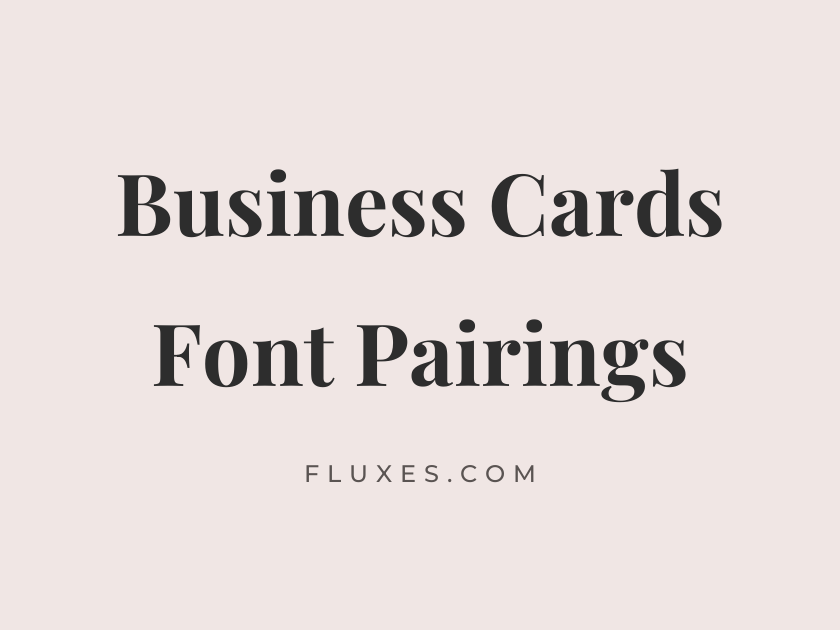
34 Best Font Pairings for Business Cards
Business cards compress an entire brand impression into a few square inches, which means every letterform has to earn its place. The right pairing signals professionalism, personality, and legibility at a glance, whether that card is being read across a table or photographed for a contact list. These combinations are all built from fonts available free on Google Fonts, chosen for genuine typographic compatibility rather than just visual novelty.
Playfair Display + Open Sans
The high-contrast strokes of Playfair Display give a card instant polish, while Open Sans’s plain, even strokes keep the contact details easy to scan. This is a dependable choice for law firms, consultancies, and any brand that wants a touch of editorial elegance without sacrificing clarity.
Cormorant Garamond + Lato
Cormorant Garamond’s delicate, tapered serifs suit boutiques and beauty brands that want to feel handcrafted rather than mass-produced. Lato’s humanist warmth keeps the supporting text approachable so the card doesn’t tip into overly precious territory.
Bebas Neue + Nunito Sans
Bebas Neue’s tall, condensed capitals command attention in a small format, which is exactly what a name or logotype on a card needs. Nunito Sans softens the mood underneath with rounded terminals, giving the pairing energy without harshness.
Oswald + Merriweather
Oswald’s condensed grotesque shapes read like a masthead, making it a natural fit for media, publishing, and editorial-adjacent businesses. Merriweather’s sturdy serif body text has enough personality to feel literary while staying comfortable at small sizes.
Abril Fatface + Karla
Abril Fatface’s dramatic thick-and-thin contrast gives fashion and lifestyle brands an immediate sense of style. Karla’s low-key geometric sans keeps the rest of the card grounded so the display face can do the talking.
Cinzel + EB Garamond
Cinzel’s inscriptional capitals borrow the authority of engraved stone lettering, a natural fit for law offices, financial firms, and heritage brands. EB Garamond shares that classical lineage, so the two feel historically connected rather than mismatched.
Poppins + Nunito
Poppins is a geometric sans with true circular curves, giving startup cards a friendly, confident voice. Nunito’s rounded body text echoes that geometry closely enough to feel like one coherent system.
Archivo Black + Work Sans
Archivo Black’s heavy, no-nonsense weight makes a name mark feel solid and confident on a small card. Work Sans, drawn with similar grotesque proportions, keeps the supporting information light and easy to read beside that bold anchor.
Prata + PT Sans
Prata has an old-world formality that suits hotels, restaurants, and hospitality brands aiming for a sense of occasion. PT Sans is plain enough to disappear into the background, letting Prata’s flourish remain the focal point.
Montserrat + Merriweather
Montserrat’s geometric structure gives headings a confident, urban feel that reads well in both uppercase and title case. Pairing it with Merriweather introduces warmth and readability, a combination that suits consultancies wanting to feel both modern and credible.
Marcellus + Jost
Marcellus has a restrained, classical elegance that works beautifully for spas, yoga studios, and wellness brands. Jost’s geometric simplicity, modeled loosely on early twentieth-century sans faces, keeps the overall feel unhurried and clean.
DM Serif Display + DM Sans
These two fonts were designed as a family, so their proportions, x-heights, and spacing are already built to agree. That shared foundation makes this an easy, low-risk choice for architecture, design, and creative practices.
Fraunces + Inter
Check legibility at business card scale, not just on screen. Thin display fonts and heavily decorative faces can lose detail when printed small, so test a physical proof before ordering.
Limit each card to two font families. Adding a third almost always weakens the hierarchy that makes a pairing work in the first place.
Match the mood to the industry. A financial advisor and a florist can both use serif and sans pairings, but the specific fonts chosen should reflect the formality, warmth, or energy of the brand.